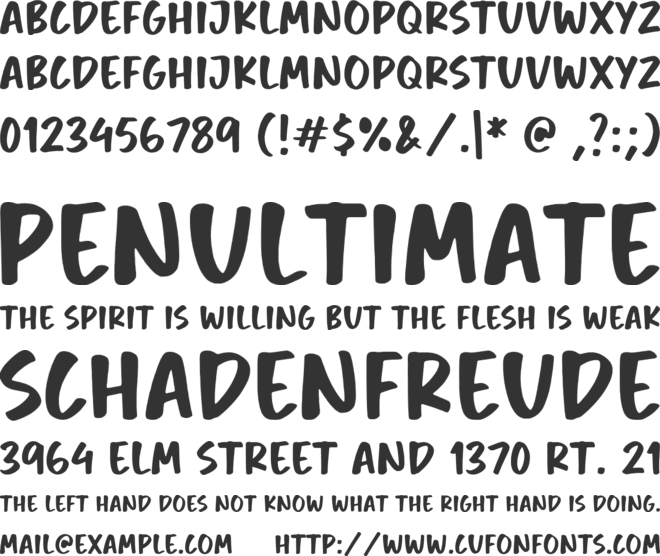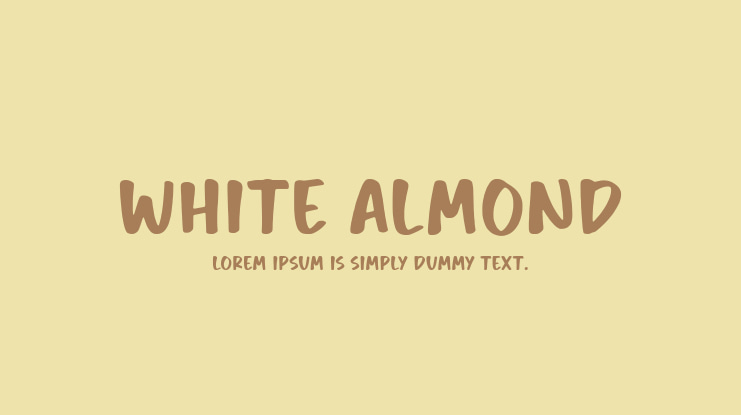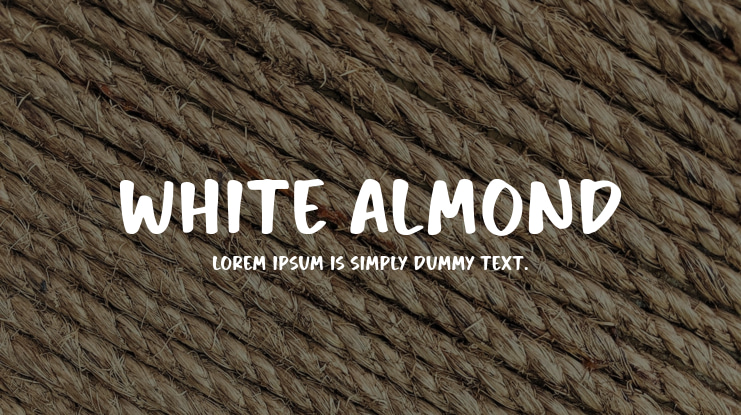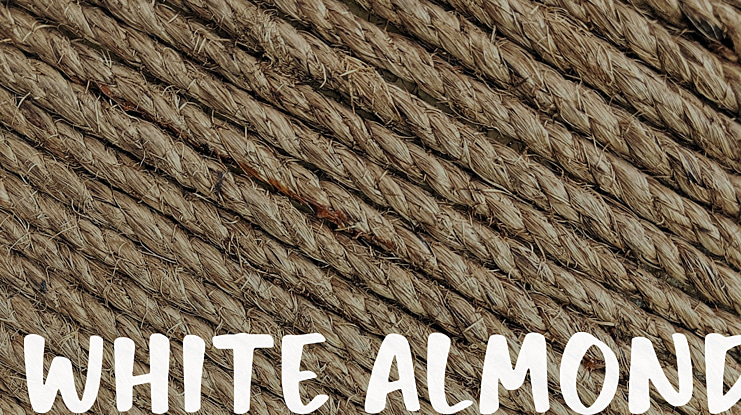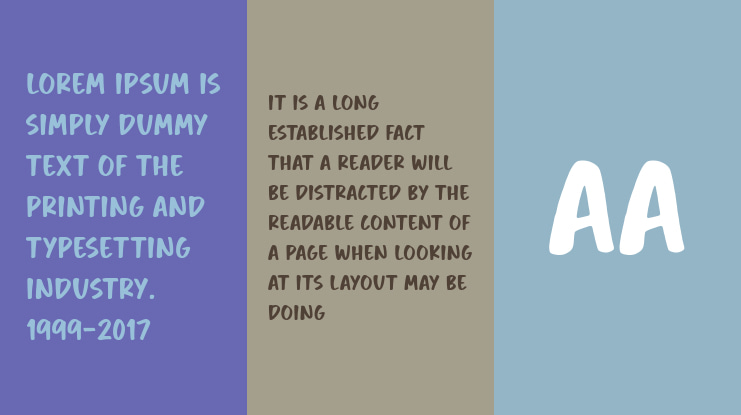
Introducing the White Almond Handwritten Font, a modern and fresh script font that will add a warm and inviting touch to your business. This font is perfect for product packaging, branding projects, magazines, social media, weddings, or any instance where you want to make a statement.
In addition, White Almond supports multilingual characters, allowing you to express your message in different languages.